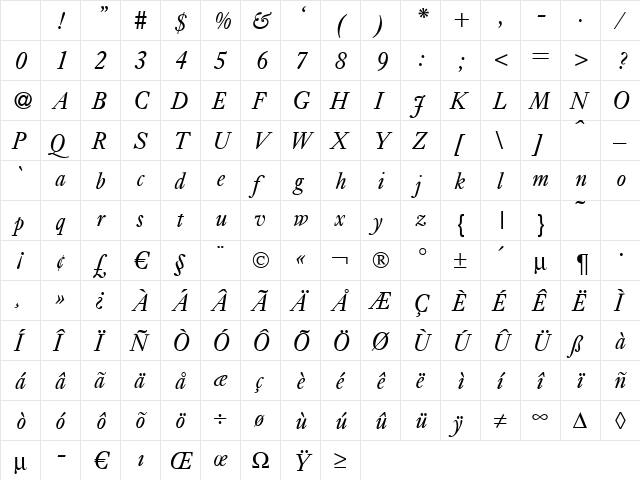
Complete E720-Roman Italic glyph index. Displaying only characters natively supported by E720-Roman Italic font.
E720-Roman is a composed and adaptable typeface that performs quietly and consistently across a wide range of design contexts. The slanted form adds forward momentum and visual energy.